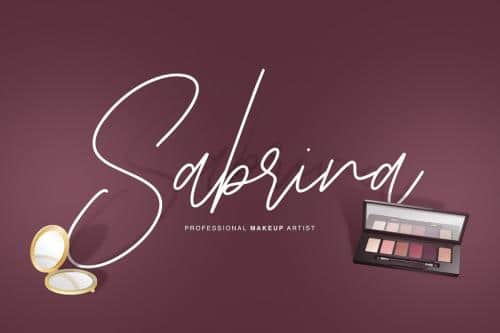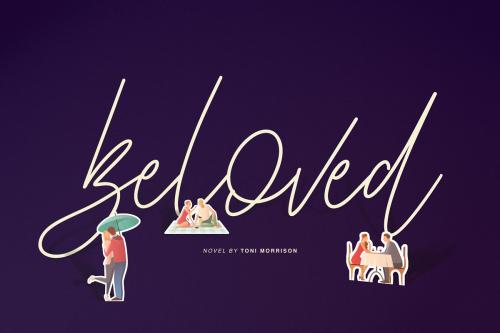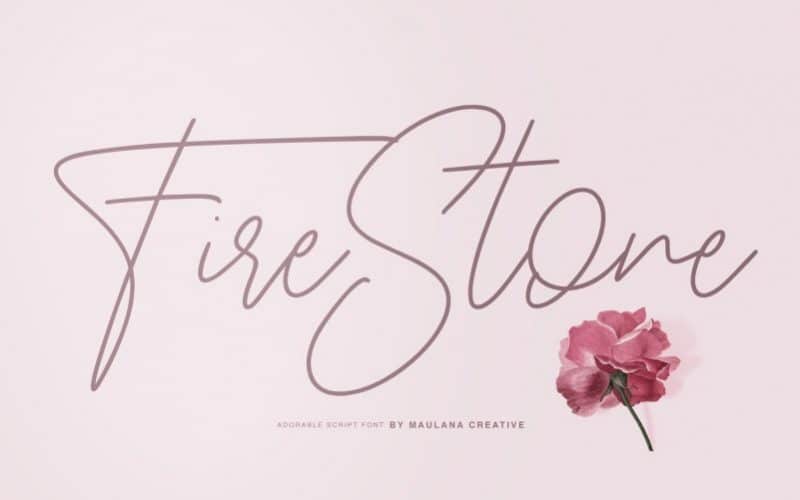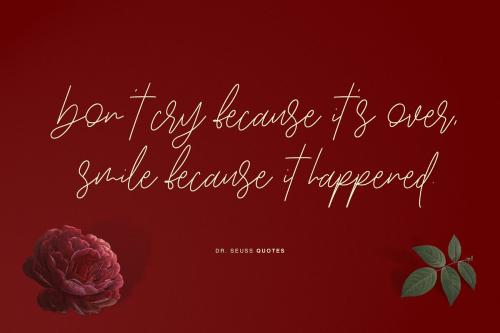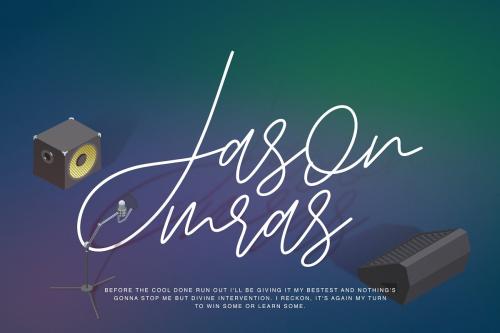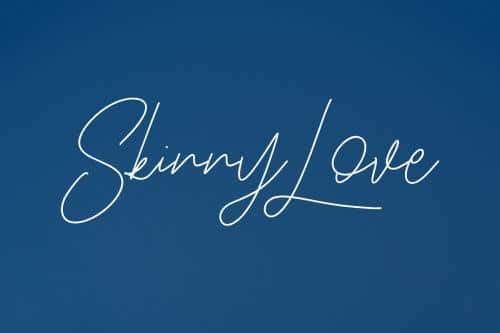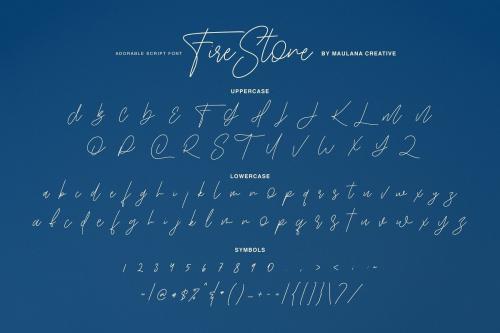
Fire Stone Handwritten Font. Give your designs an authentic handcrafted feel. “Fire Stone” is perfectly suited to signature, stationery, logo, typography quotes, magazine or book cover, website header, clothing, branding, packaging design and more.